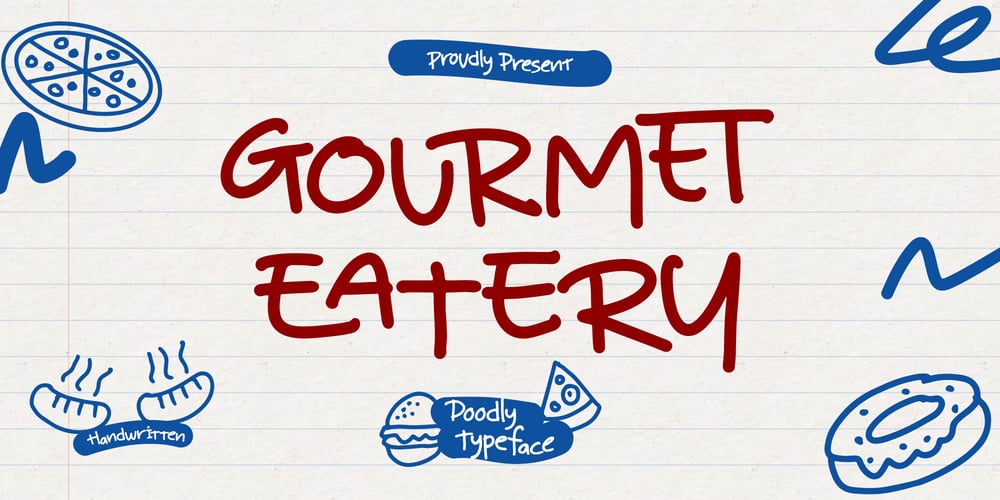
Gourmet Eatery
Gourmet Eatery font
Gourmet Eatery Font Family was designed by Dede Nugraha and published by Denustudio. Gourmet Eatery contains 3 styles and family package options. Gourmet Eatery | Doodle Typeface, from Denustudios, suitable for any projects such as: logos, branding projects, homeware designs, product packaging, mugs, quotes, posters, shopping bags, t-shirts, book covers, name card, invitation cards, greeting cards, label, photography, watermark, special events, and all your other lovely projects that need a Gourmet Eatery taste. ===============================================================What’s Included : Dingbat Bonus Regular and Italic Web Font Standard glyphs Alternate and Ligature Works on PC & Mac Simple installations Accessible in the Adobe Illustrator, Adobe Photoshop, Adobe InDesign, even work on Microsoft Word and Other Software. PUA Encoded Characters – Fully accessible without additional design software. Fonts include multilingual support